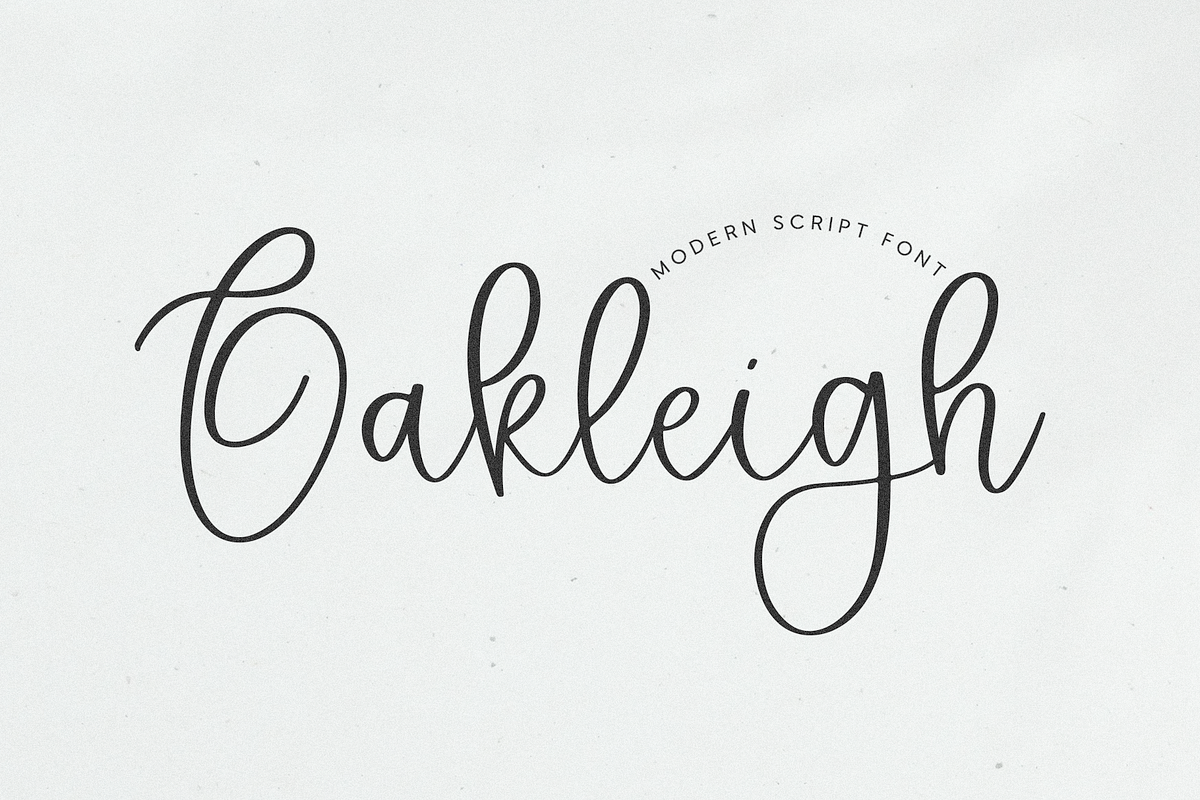
Oakleigh | Modern Script Font Free Download is a sleek and stylish handwritten typeface that brings a modern, elegant touch to any design. With its flowing strokes and smooth curves, Oakleigh is ideal for logos, wedding invitations, social media graphics, personal branding, and upscale packaging.
Crafted for beauty and legibility, this script font includes ligatures, alternates, and full multilingual support—giving you the flexibility to customize with flair. Compatible with both Mac and Windows platforms, Oakleigh ensures a seamless experience for designers in any workflow.